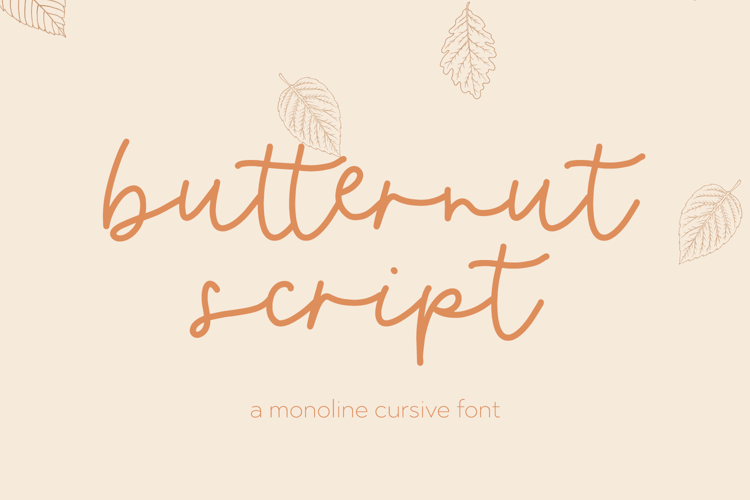
Meet Butternut, a monoline cursive font with the cutest amount of bounce!
Butternut is best for:
- website design + website accents - think travel blogs, fashion blogs, & more
Butternut includes:
- 1 ligature, tt